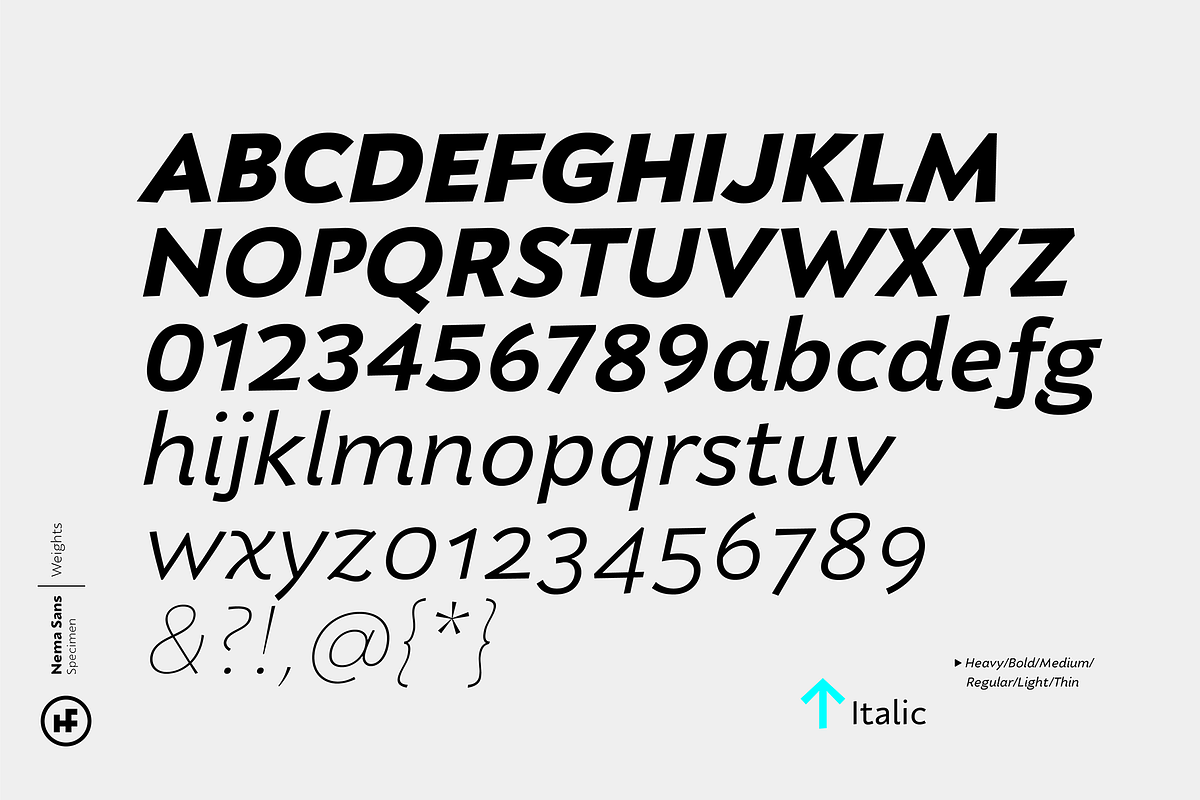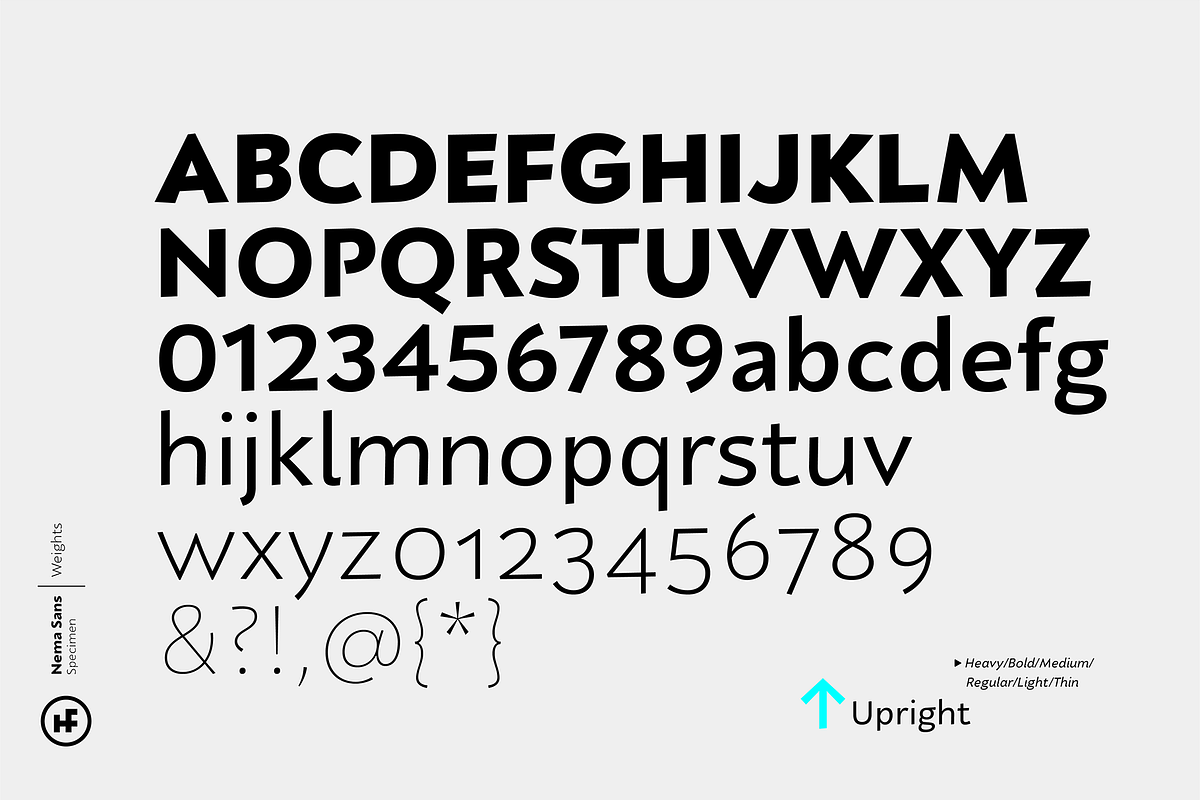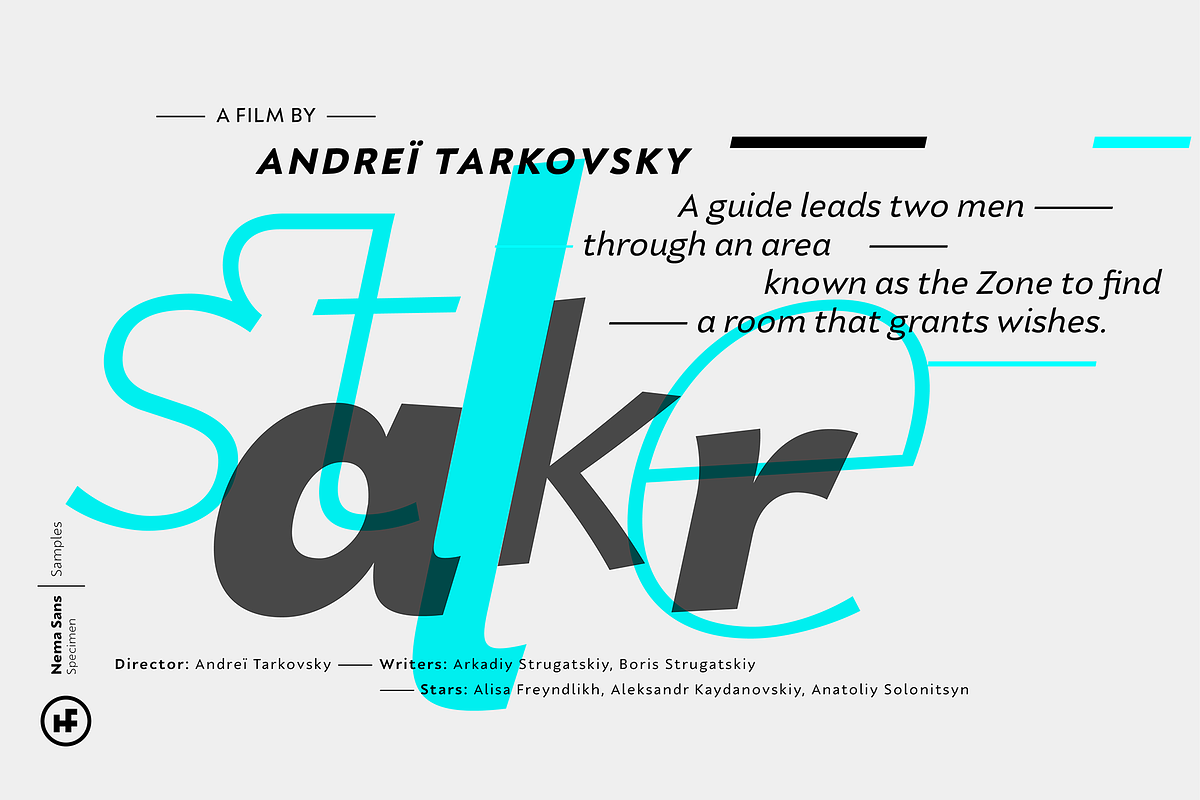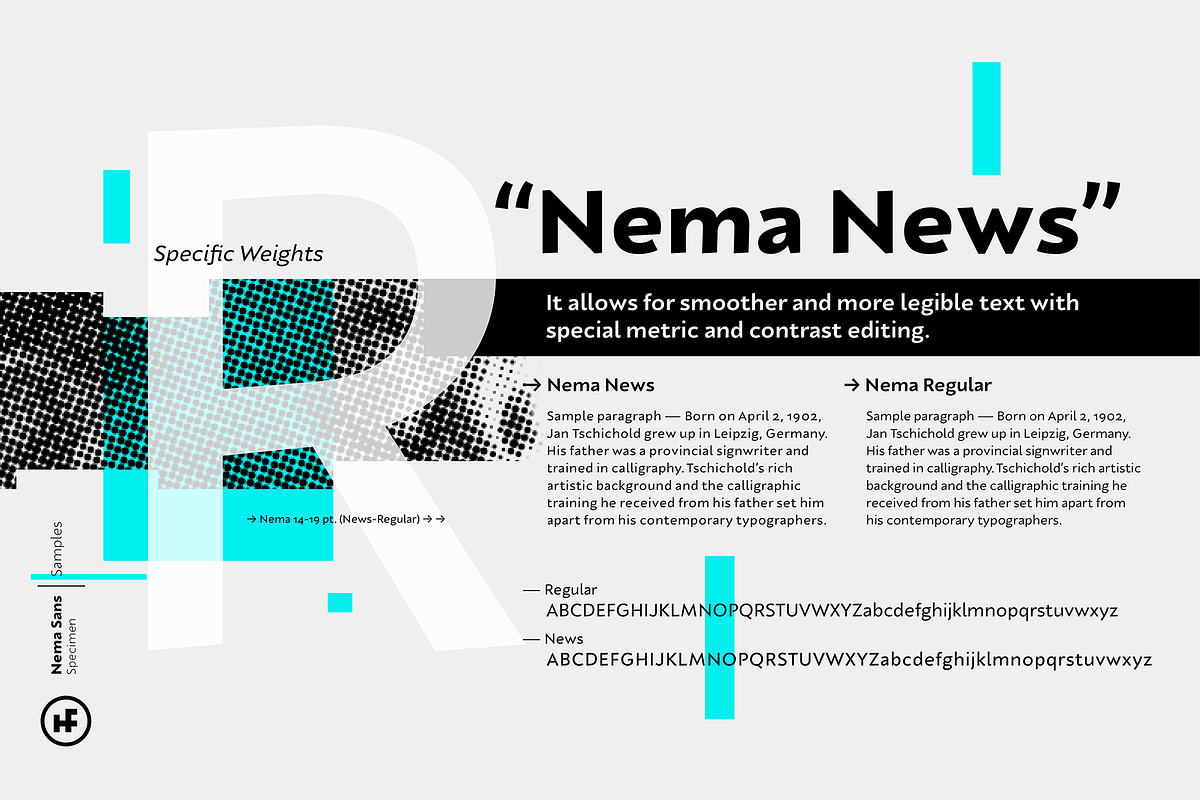
Nema Sans
Nema is a sans serif family built in calligraphic structure. It consists of 14 styles including 7 weights and italics. Even if the character structure is constructed in classical geometric proportions, some letters were treated flexibly.